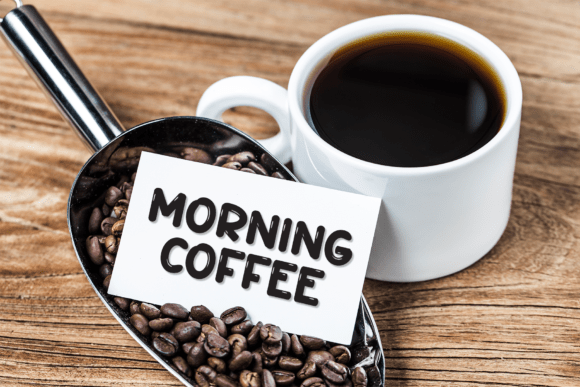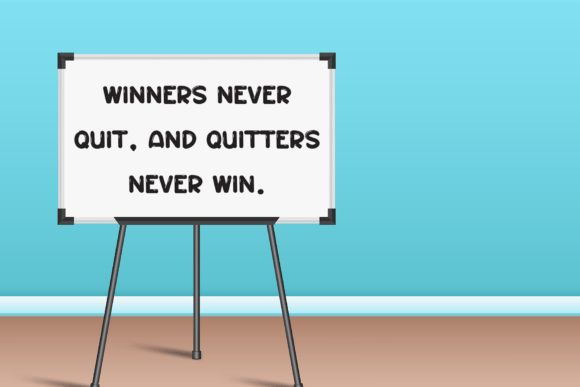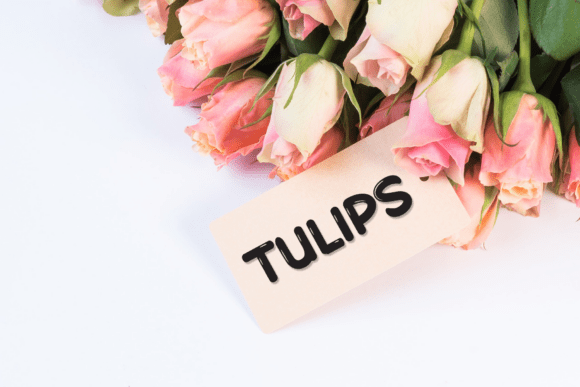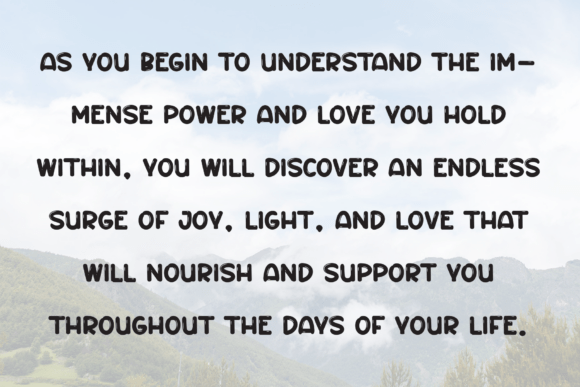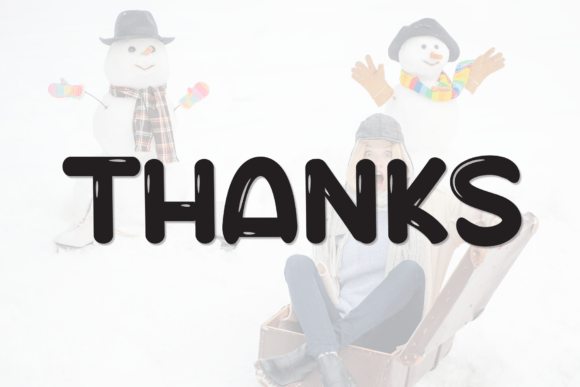
Inject a Dose of Joy into Your Seasonal Projects with the Funny Winter Font
Winter is here, and it’s the perfect time to add some humor and whimsy to your designs. If you’re looking for a font that can bring a smile to people’s faces, look no further than the Funny Winter font. This bold, bubbly display typeface is packed with personality, making it the ultimate choice for children’s books, holiday party flyers, and whimsical winter merchandise.
The Characteristics of Funny Winter Font
The Funny Winter font features soft, rounded edges that give it a friendly and approachable feel. Its charming “inner-light” accents mimic the glistening of fresh snow, adding a touch of magic to your designs. The font’s playful, chunky letterforms are sure to grab attention and make your designs stand out from the crowd.
Why Choose Funny Winter Font?
When you use the Funny Winter typeface, your designs instantly become more approachable and fun. The font’s bold and bubbly personality makes it perfect for a variety of design projects, including:
- Children’s books: Add a touch of whimsy and humor to your storybook designs with the Funny Winter font.
- Holiday party flyers: Create eye-catching and festive flyers that will get your party started.
- Whimsical winter merchandise: Design fun and playful products, such as snowflake decorations, winter-themed mugs, and holiday cards.
How to Use Funny Winter Font Effectively
The Funny Winter font is a versatile typeface that can be used in a variety of ways. Here are some tips on how to use it effectively:
- Use it for oversized headlines on posters or flyers to grab attention.
- Pair it with a simple monoline font to keep the focus on its playful, chunky letterforms.
The Benefits of Using Funny Winter Font
The Funny Winter font offers a range of benefits for designers and crafters, including:
- Instant recognition: The font’s bold and playful personality makes it instantly recognizable.
- Emotional connection: The font’s friendly and approachable feel helps to create an emotional connection with your audience.
- Versatility: The font can be used in a variety of design projects, from children’s books to holiday party flyers.
If you’re a designer or crafter looking to add some humor and whimsy to your winter designs, here are some tips to keep in mind:
- Don’t be afraid to experiment with different fonts and pairings to find the perfect combination.
- Use the Funny Winter font to add a touch of personality to your designs.
- Consider using the font in combination with other design elements, such as illustrations or graphics, to create a cohesive look.
The Funny Winter font is a bold, bubbly display typeface that’s packed with personality. Its soft, rounded edges and charming “inner-light” accents make it the ultimate choice for children’s books, holiday party flyers, and whimsical winter merchandise. With its versatility and emotional connection, the Funny Winter font is sure to bring a smile to people’s faces and make your designs stand out from the crowd.
So why not inject a dose of joy into your seasonal projects with the Funny Winter font? Try it out today and see the difference it can make in your designs!